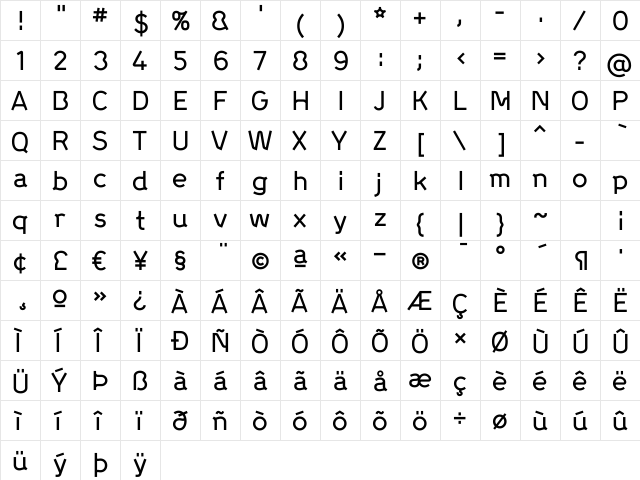
ProgressMedium Regular
Design Context for ProgressMedium Typeface
ProgressMedium takes a measured approach to typography — its balanced proportions and neutral character make it a reliable workhorse for both digital and print work.